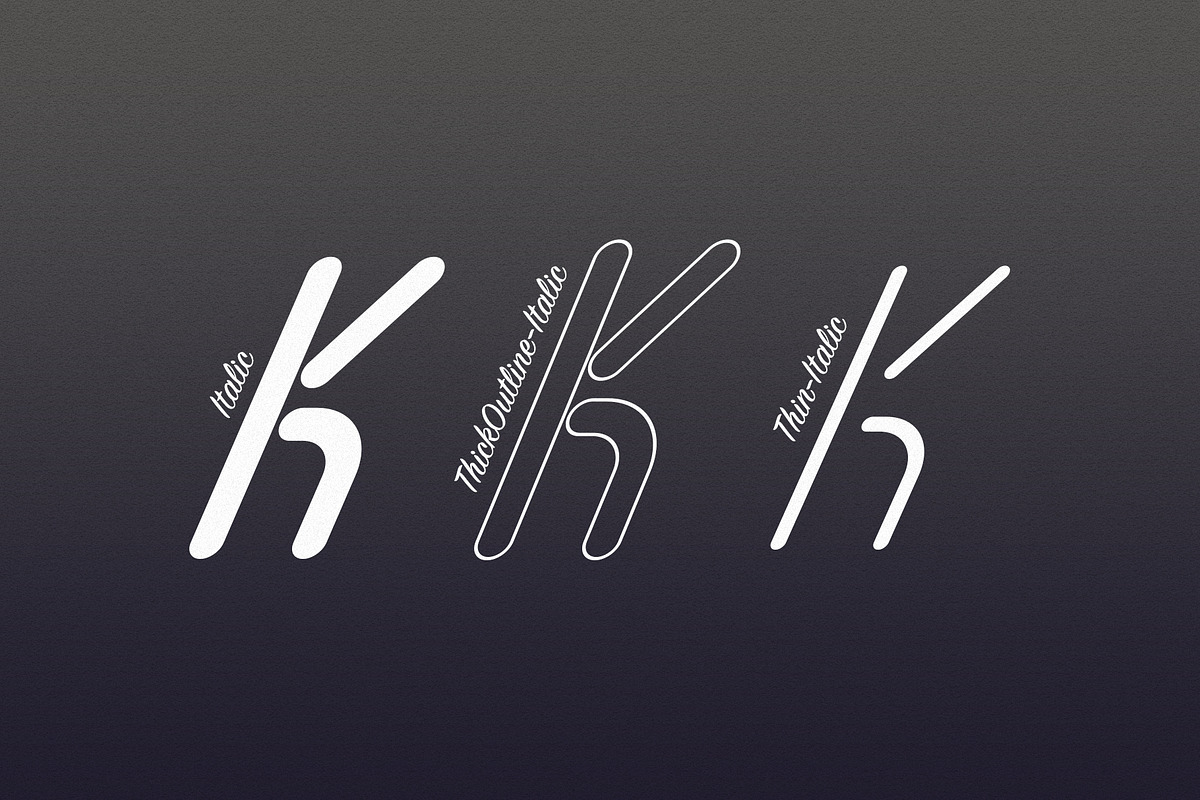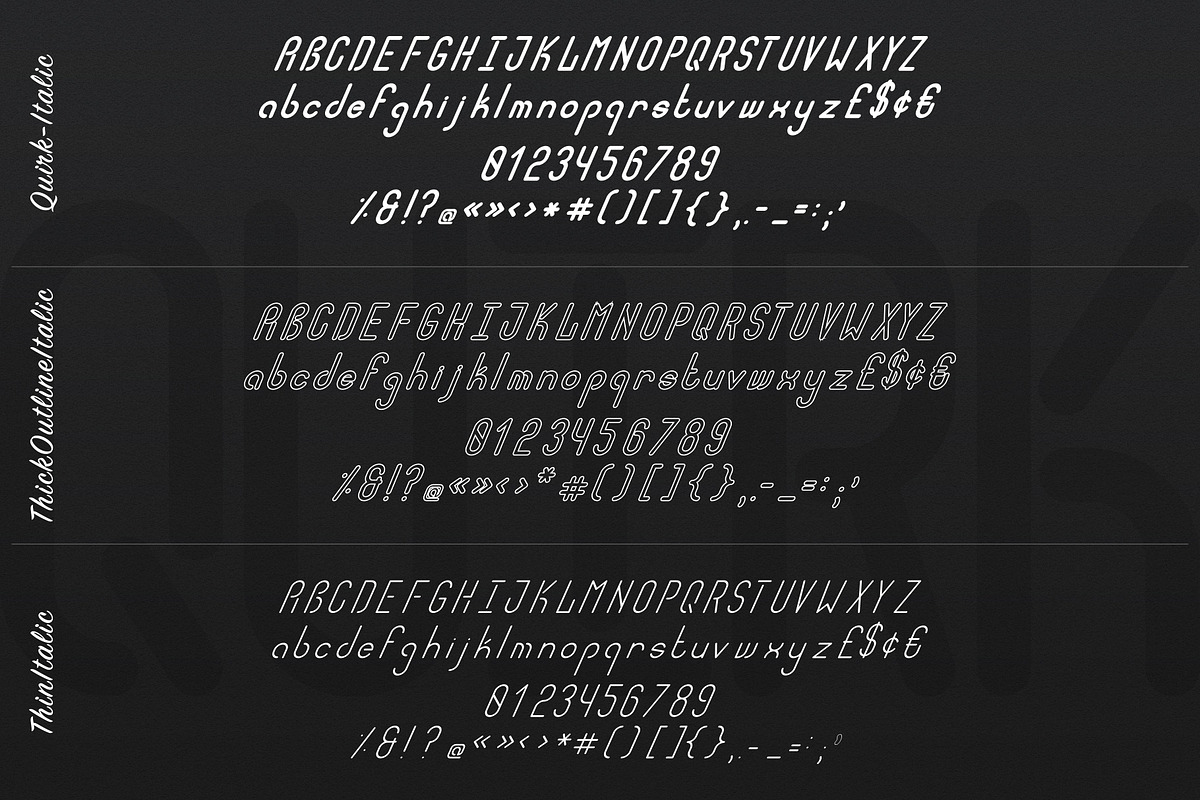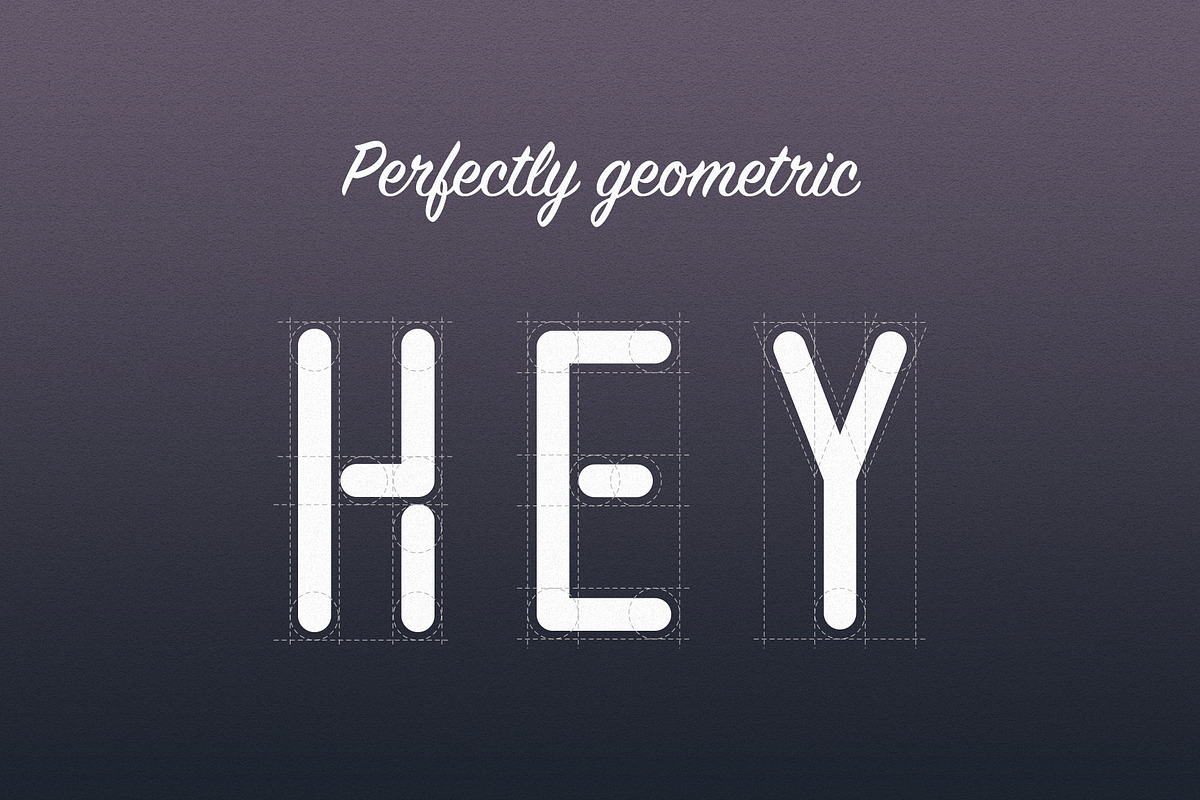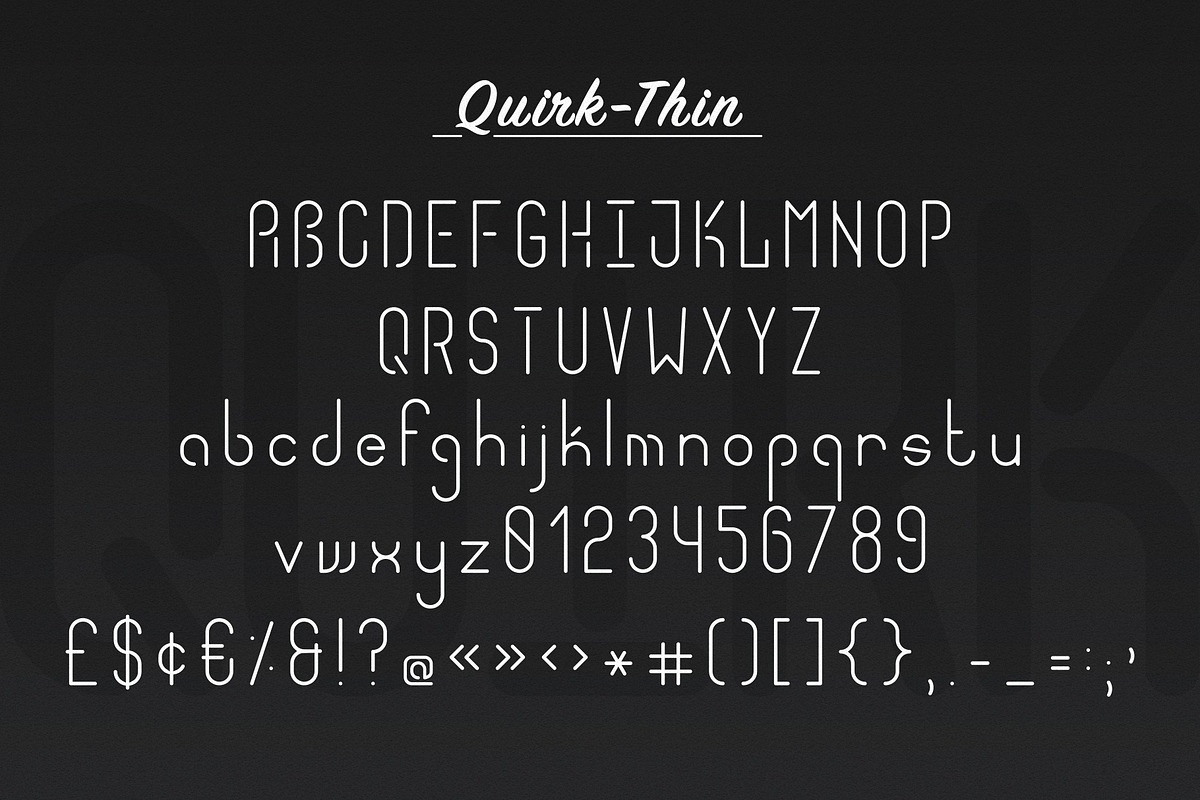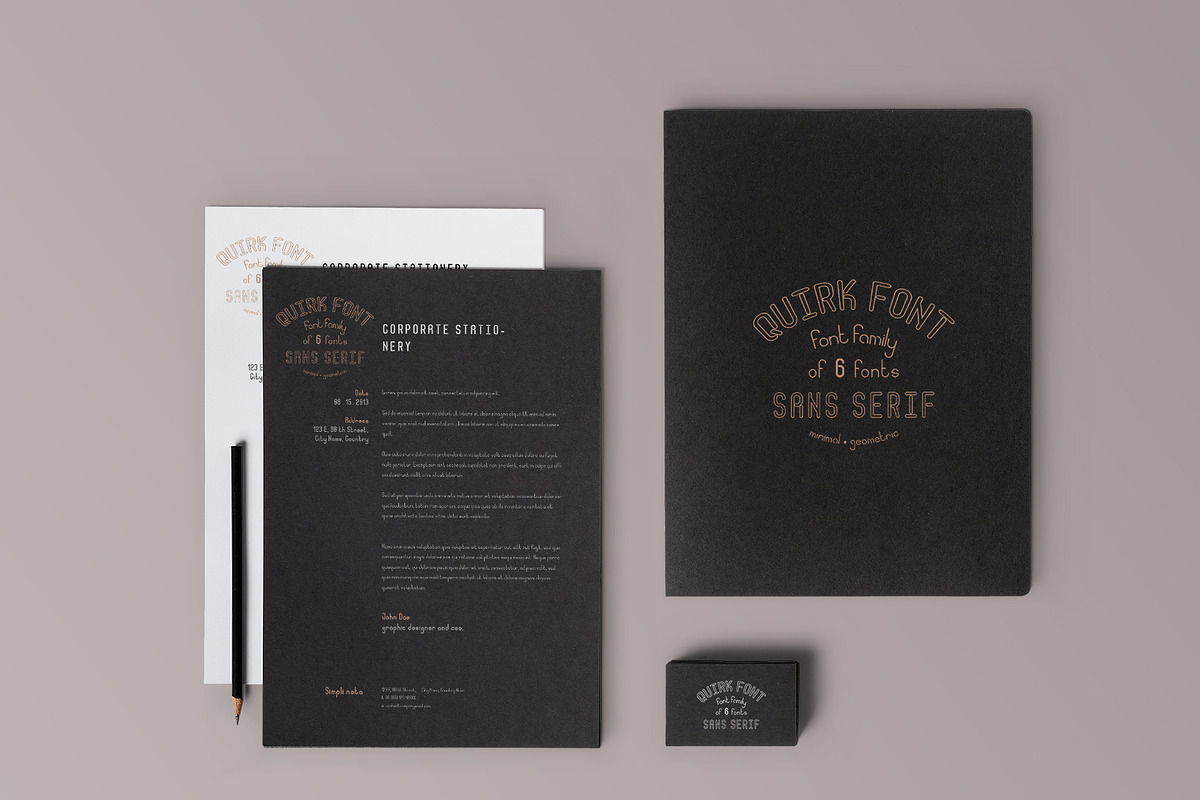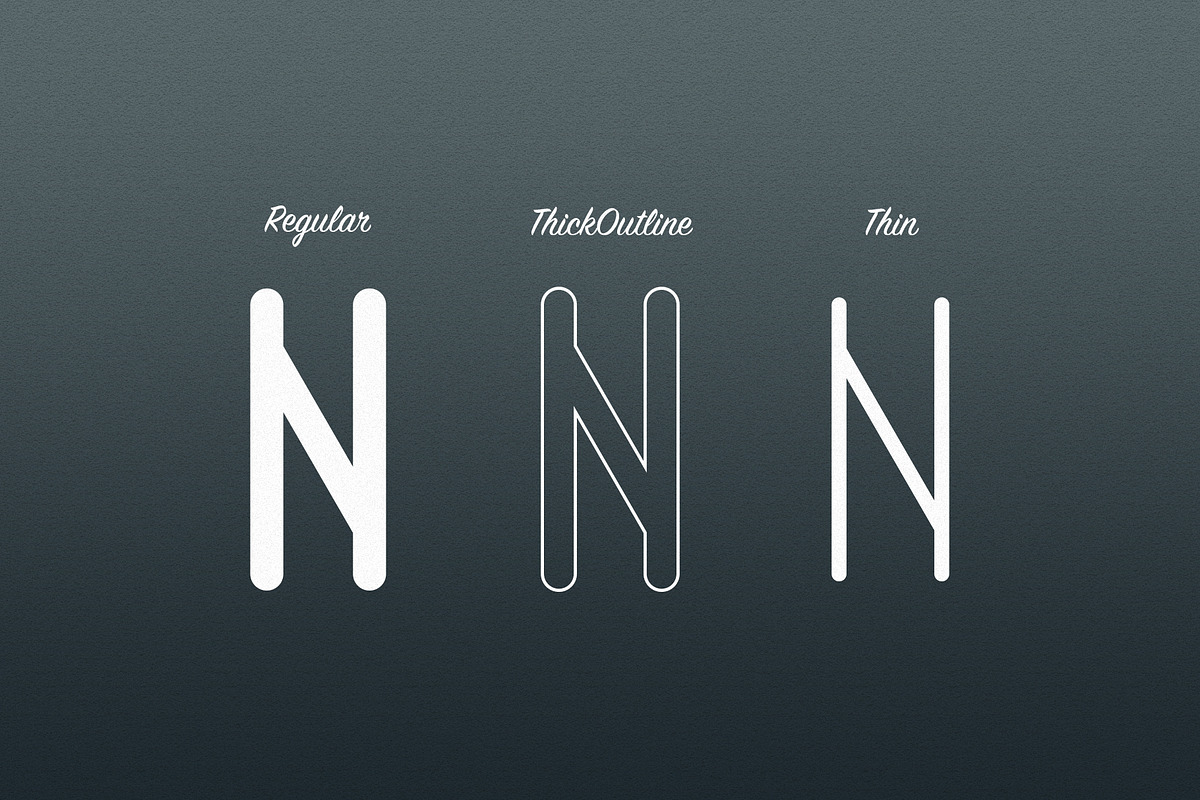
Quirk font family
Quirk font family is a perfectly geometric font for your design.
It comes in both Regular and Italic versions.
Each style has 91 glyphs.
Quirk font family by SomStock fits naturally into Branding, posters, packaging, typography.